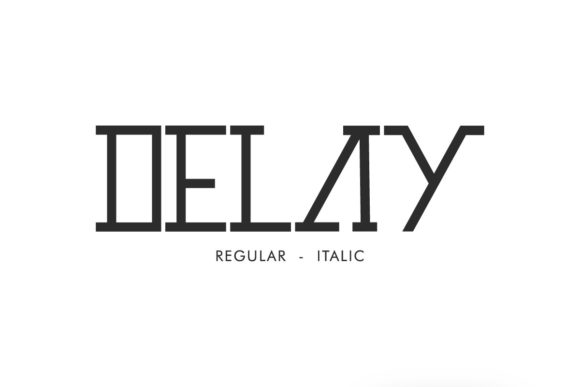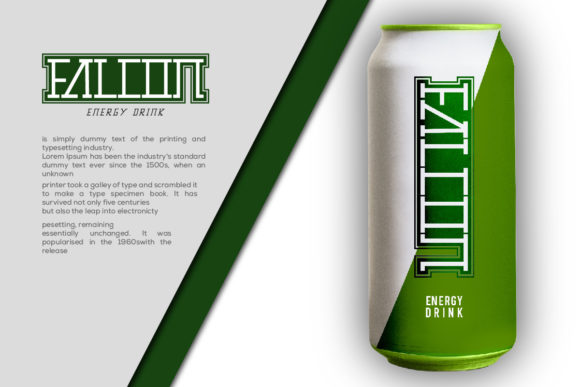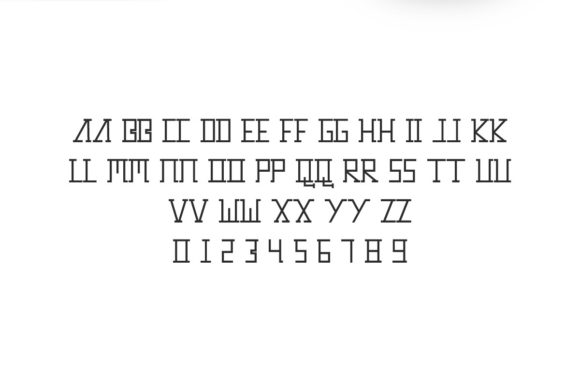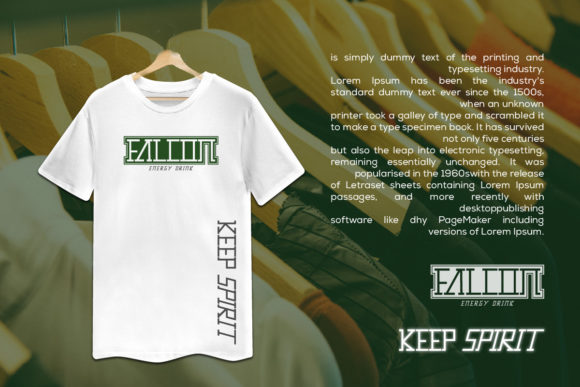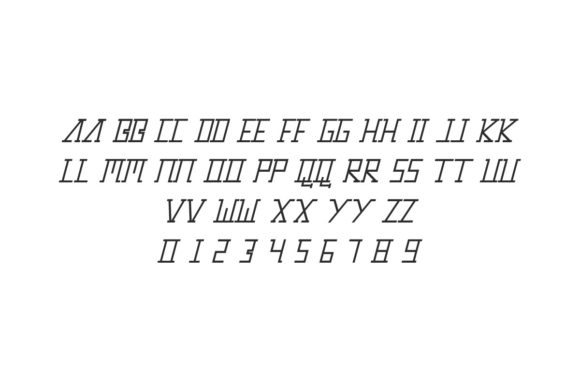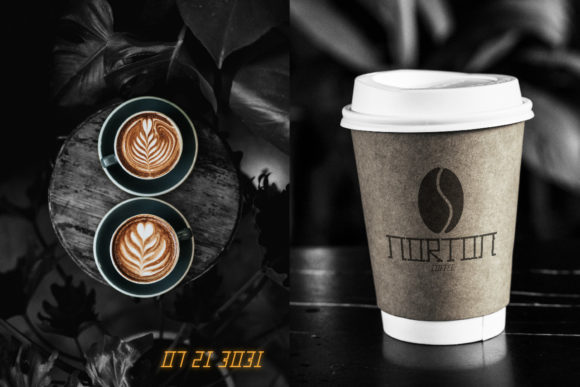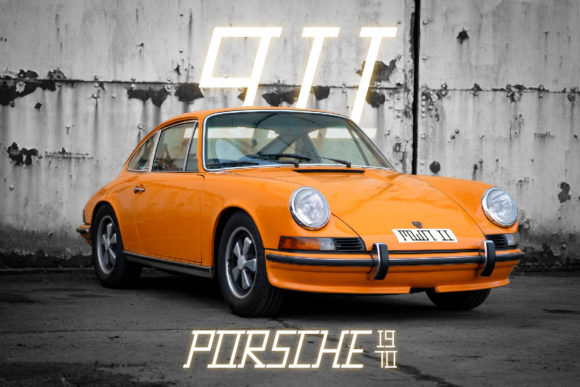
Delay
Delay: A Cool and Minimalistic Slab Serif Font
Delay is a distinctive slab serif font that combines coolness with a minimalistic design. This versatile typeface offers designers a powerful tool for creating impactful typography across a wide range of applications, particularly suited for modern and unique projects.
Key Features of Delay
• Cool Design: Features a trendy and appealing appearance that resonates with contemporary design trends.
• Minimalistic Aesthetic: Offers a clean and uncluttered look, perfect for designs requiring simplicity and elegance.
• Slab Serif Structure: Maintains the characteristic thick, rectangular serifs typical of slab serif fonts.
• Versatile Application: Suitable for a variety of design contexts, from digital to print.
• Modern Touch: Designed to add a unique and contemporary feel to any project.
Ideal Uses for Delay
Delay’s unique characteristics make it particularly well-suited for:
• Web designs that require a modern and minimalistic look
• Business cards aiming for a cool and professional feel
• Branding projects for contemporary businesses
• Magazine layouts and editorial designs
• Social media graphics and digital content
When incorporating Delay into your designs, consider the following tips:
• Use for both headlines and short blocks of text to maximize its cool and minimalistic impact
• Experiment with different sizes to highlight the font’s unique details
• Consider pairing with complementary sans-serif fonts for body text to create contrast
• Take advantage of its versatility across various projects that require a modern touch
Delay is an excellent choice for designers looking to add a cool and minimalistic slab serif font to their typographic toolkit. Its ability to create a modern and unique atmosphere makes it stand out in the world of typography. Whether you’re working on logo designs, creating business cards, or developing any project that requires a contemporary feel, Delay offers the perfect blend of coolness and minimalism.
Add Delay to your designs and explore how it can bring a modern and unique edge to your creative projects. From sleek web headers to stylish business cards, this font provides the tools to create impactful and memorable typography that resonates with audiences seeking a contemporary aesthetic. It’s versatile enough to be used in various contexts, from vintage-inspired designs with a modern twist to cute and friendly layouts that need a touch of sophistication.
Whether you’re creating a magical and mysterious atmosphere or aiming for a more thoughtful and introspective mood, Delay can adapt to your needs. Its flexibility allows it to work well in both rustic, vintage-style projects and holiday-themed designs that require a modern update. For those looking to add a touch of nostalgia with a contemporary feel, this font can even complement vintage Christmas-inspired creations.